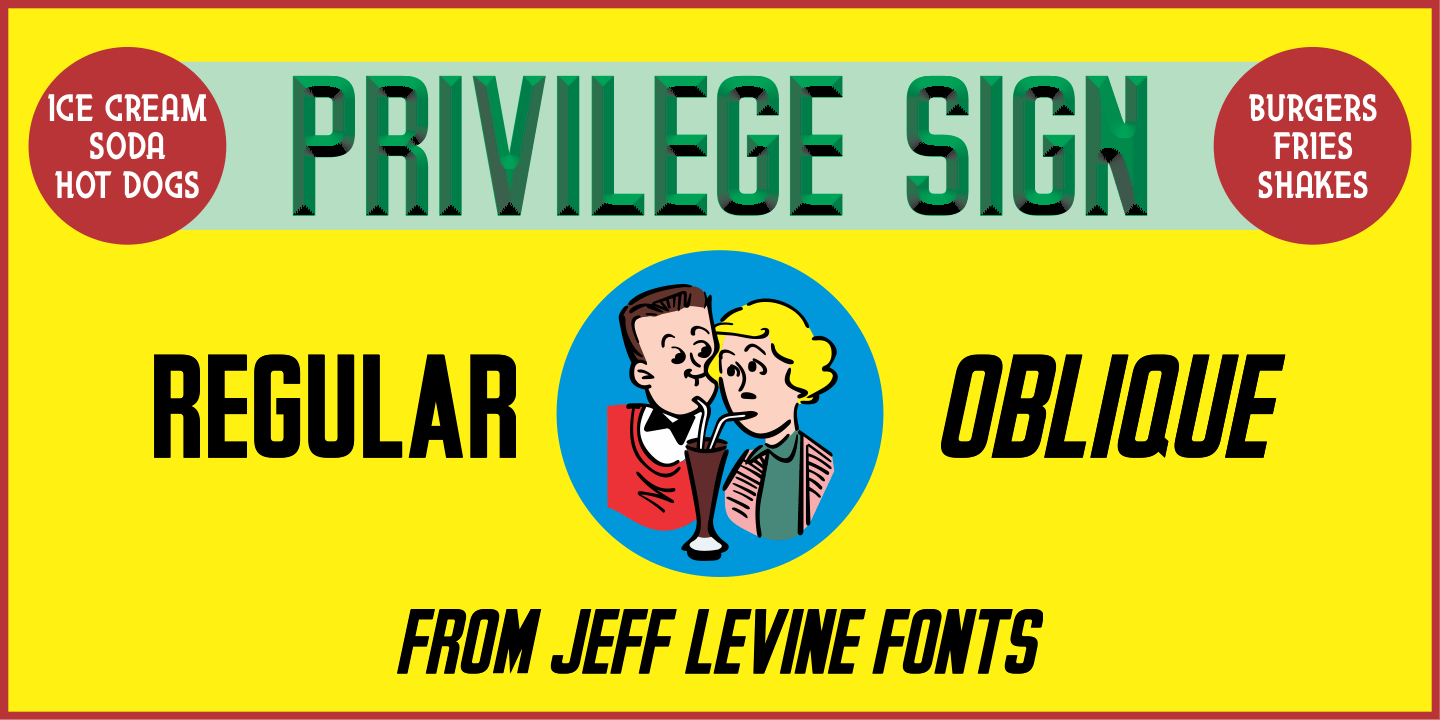
Privilege Sign
The above-the-store signage for many newspaper stands, soda shops, candy stores, luncheonettes and pharmacies of the 1950s and early 1960s were what was referred to as “privilege signs” provided by one of the major cola brands.
Consisting of the brand’s emblems on the left and right, the remainder of the sign would carry the desired message of the storekeeper (such as “Candy – Soda – Newspapers”) in prismatic, embossed metal letters.
Inspired by these vintage signs, Privilege Sign JNL recreates the condensed sans serif lettering style in both regular and oblique versions. The typefaces are solid black, but adding a selected color and a prismatic effect from your favorite graphics program can reproduce the look and feel of those old businesses.